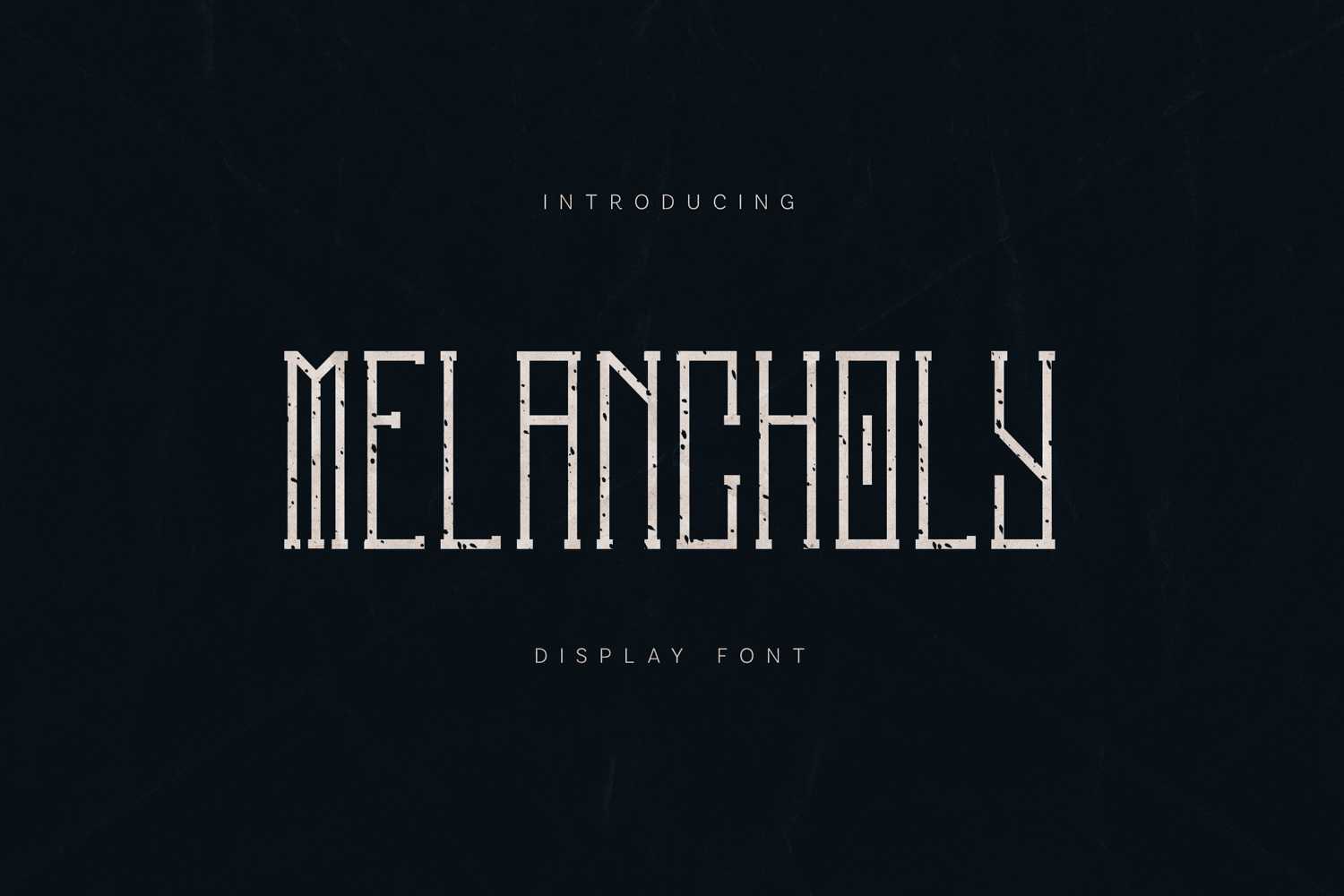
Melancholy Futuristic Display Serif Font
Melancholy is a modern display serif font inspired by atmosphere, emotion, and futuristic structure. Built with tall proportions and a condensed form, it delivers a striking visual presence while maintaining a refined and minimal aesthetic.
The letterforms are crafted with sharp vertical strokes, geometric precision, and subtle decorative details that create a unique balance between elegance and edge. Each character carries a slightly distressed texture, adding depth and a cinematic mood to the overall design.
Melancholy blends architectural structure with expressive character. The narrow spacing and elongated shapes give it a powerful rhythm, making it ideal for bold headlines and visually driven compositions. Its distinctive style brings a sense of tension, emotion, and modern sophistication.
This typeface works especially well in:
• editorial headlines
• poster design
• branding identities
• cinematic visuals
• fashion campaigns
• album covers
• experimental layouts
• modern typography compositions
With its sharp structure, atmospheric tone, and refined details, Melancholy is a display serif typeface designed to bring emotion, impact, and a modern edge into your work.